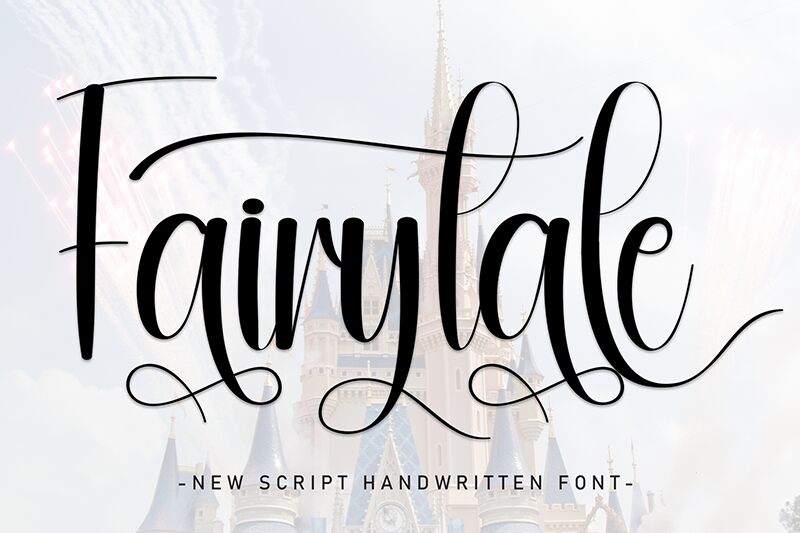
Fairytale 2
Fairytale 2 font is a decorative flowing calligraphy font created and provided by Andi Moz. The whimsical condensed allcap characters have a clear fairytale inspiration and are decorated with expressive ink flourishes that add to the elegance of the typeface. If you’re in search of gorgeous, elegant, and simple letters with swirls then this is your pick.